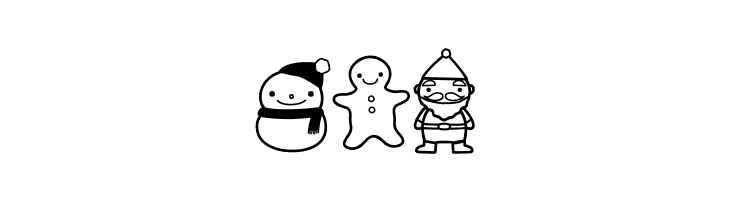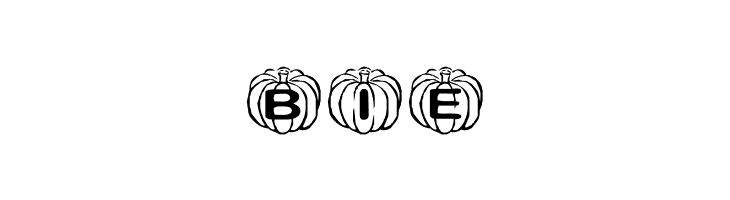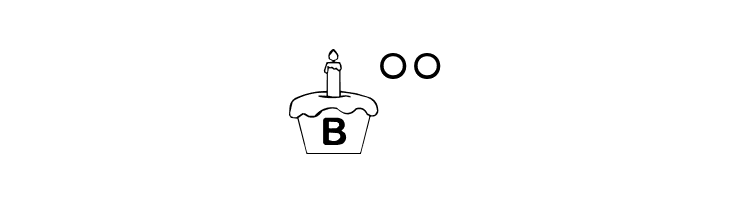
A bold, jagged font with a gothic, eerie style.
A festive collection of bold, decorative Christmas symbols perfect for holiday projects.
A bold, playful font with paper plane decorations, perfect for creative projects.
A decorative font with Christmas-themed illustrations for festive designs.
A bold, jagged font with sharp, thorn-like edges for dramatic impact.
A whimsical font with characters set inside cartoon bunny designs, perfect for festive themes.
A playful collection of game-themed symbols for decorative use.
A festive dingbat font with St. Patrick's Day symbols like shamrocks and leprechaun hats.
A decorative, nature-inspired font with intricate, vine-like details.
A decorative dingbat font with Christmas-themed icons in a circular design.
A playful, skeleton-themed font perfect for Halloween projects.
A whimsical set of holiday-themed illustrations with a playful, hand-drawn style.
Halloween-themed border font with spooky illustrations.
A playful, devil-themed font with cartoonish, hand-drawn elements.
A playful, bone-themed decorative font perfect for spooky designs.
A decorative font featuring Halloween-themed silhouettes like ghosts and pumpkins.